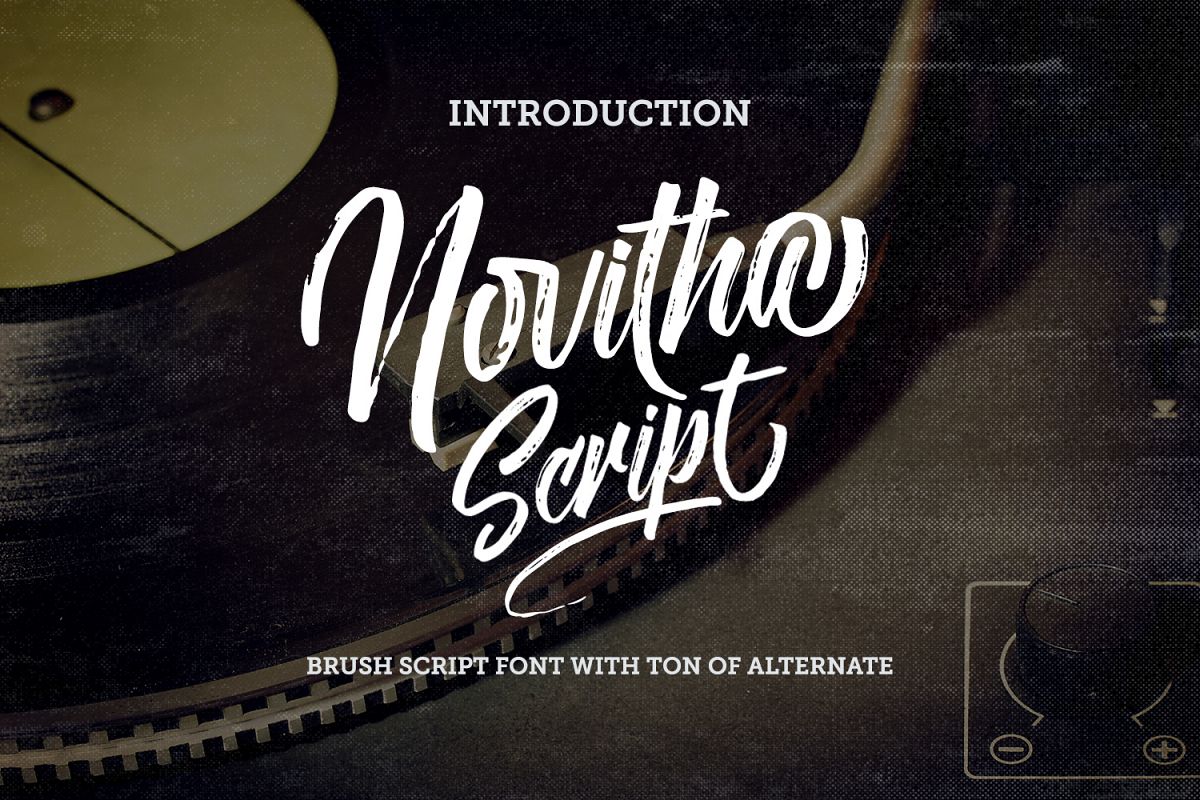
Novitha Script
Novitha Scrip
Novitha Script a new handwritten script developed using a brush pen,
As this particular font is scanned at a very high resolution, it has
very strong personality as a result. and I just making this font for all
typographer lover. Very perfect for logotype, t-shirt design,
typography poster, quote design, etc.
• Covered all basic character, numeral, punctuation and including 99 alternate characters, ligature, etc.